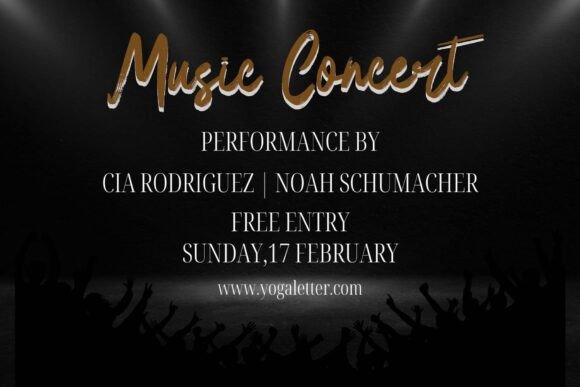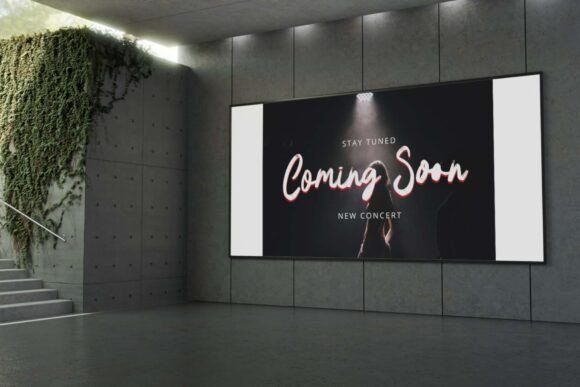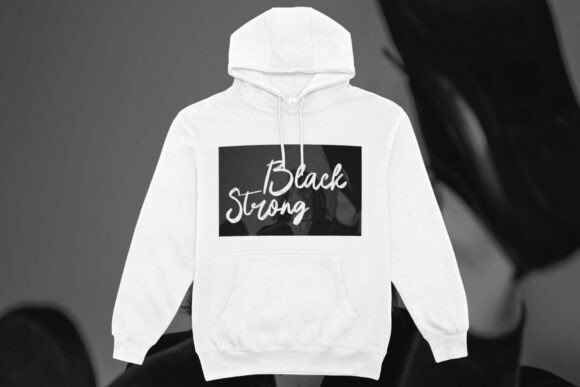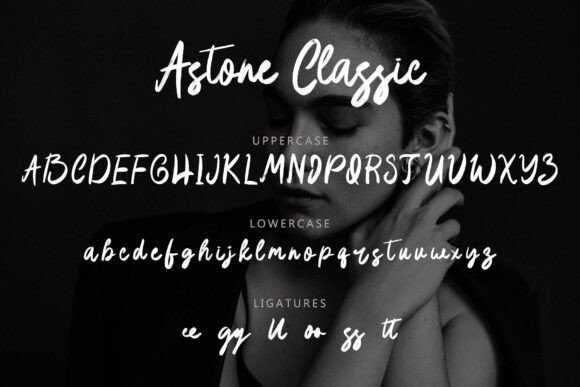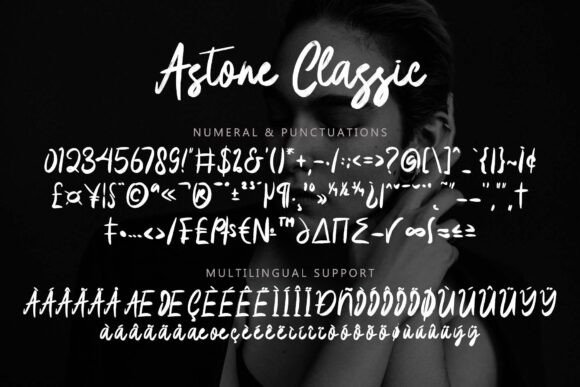
Astone Classic Font: Elevate Your Designs with Elegance and Sophistication
Are you tired of using the same old fonts in your designs? Look no further than the Astone Classic Font, an elegant and unique handwritten brush font that is sure to take your creations to the next level. With its beautiful capital letters, lowercase letters, numbers, ligatures, punctuation, and multilingual support, this font is perfect for a wide range of design projects.
What is Astone Classic Font?
Astone Classic is a carefully crafted handwritten brush font that exudes elegance and sophistication. Its unique and stylish lettering makes it perfect for designers and crafters looking to add a touch of class to their work. Whether you’re creating business branding materials, social media graphics, promotions, invitations, or prints, this font is sure to impress.
Key Features of Astone Classic Font
- Capital Letters: The Astone Classic Font features beautiful, elegant capital letters that are perfect for headings, titles, and emphasis.
- Lowercase Letters: The font also includes stylish lowercase letters that are great for body text, descriptions, and more.
- Numbers: The font includes a range of numbers, from 0 to 9, making it perfect for creating numerical designs, such as posters, banners, and infographics.
- Ligatures: Astone Classic Font also features ligatures, which are special character combinations that create a more natural, handwritten look.
- Punctuation: The font includes a range of punctuation marks, including commas, periods, exclamation points, and more.
- Multilingual Support: Astone Classic Font supports multiple languages, making it perfect for designers and crafters working on international projects.
Uses for Astone Classic Font
The Astone Classic Font is incredibly versatile and can be used for a wide range of design projects, including:
- Business Branding: Create professional and elegant business branding materials, such as logos, letterheads, and business cards.
- Social Media: Use Astone Classic Font to create eye-catching social media graphics, such as Facebook posts, Instagram stories, and Twitter headers.
- Promotions: Create promotional materials, such as flyers, brochures, and posters, that showcase your products or services.
- Invitations: Design beautiful and elegant invitations for special occasions, such as weddings, birthdays, and holidays.
- Tumblers: Create custom tumblers with Astone Classic Font for a unique and personalized gift.
- Banners: Design eye-catching banners for events, sales, and promotions.
- Posters: Create stunning posters for advertising, promotion, or decoration.
- Prints: Use Astone Classic Font to create beautiful prints, such as art prints, photographs, and more.
- Branding: Create a consistent brand image with Astone Classic Font for your business or personal brand.
- Stickers: Design custom stickers with Astone Classic Font for promotional or decorative use.
- Christmas and Winter: Create festive and elegant Christmas and winter-themed designs, such as holiday cards, decorations, and more.
- Valentine: Design romantic and elegant Valentine’s Day-themed designs, such as cards, gifts, and more.
Why Choose Astone Classic Font?
There are many reasons why Astone Classic Font stands out from the crowd:
- Unique and Elegant: Astone Classic Font is a truly unique and elegant font that will set your designs apart.
- High-Quality: The font is carefully crafted to ensure high-quality and clear lettering.
- Versatile: Astone Classic Font can be used for a wide range of design projects, from business branding to social media graphics.
- Multilingual Support: The font supports multiple languages, making it perfect for international designers and crafters.
In conclusion, Astone Classic Font is an elegant and unique handwritten brush font that is perfect for designers and crafters looking to elevate their designs. With its beautiful capital letters, lowercase letters, numbers, ligatures, punctuation, and multilingual support, this font is versatile and can be used for a wide range of design projects. Whether you’re creating business branding materials, social media graphics, promotions, invitations, or prints, Astone Classic Font is sure to impress.